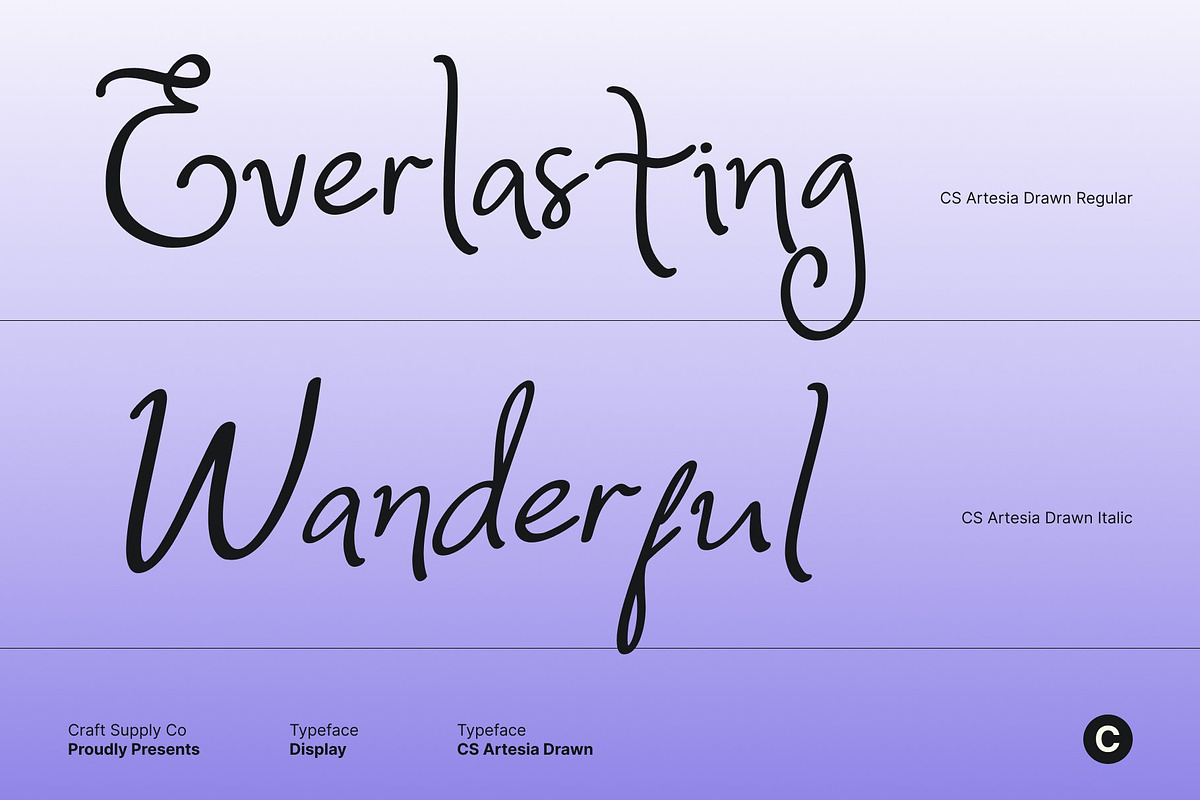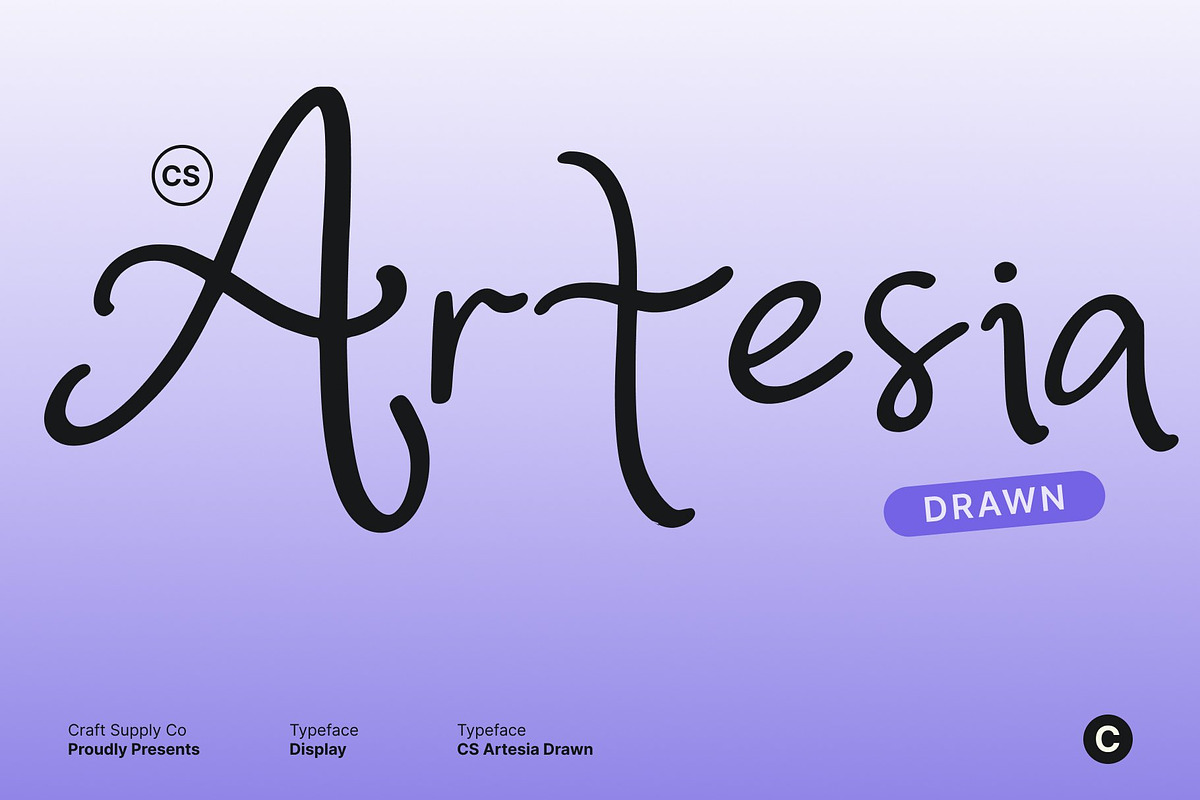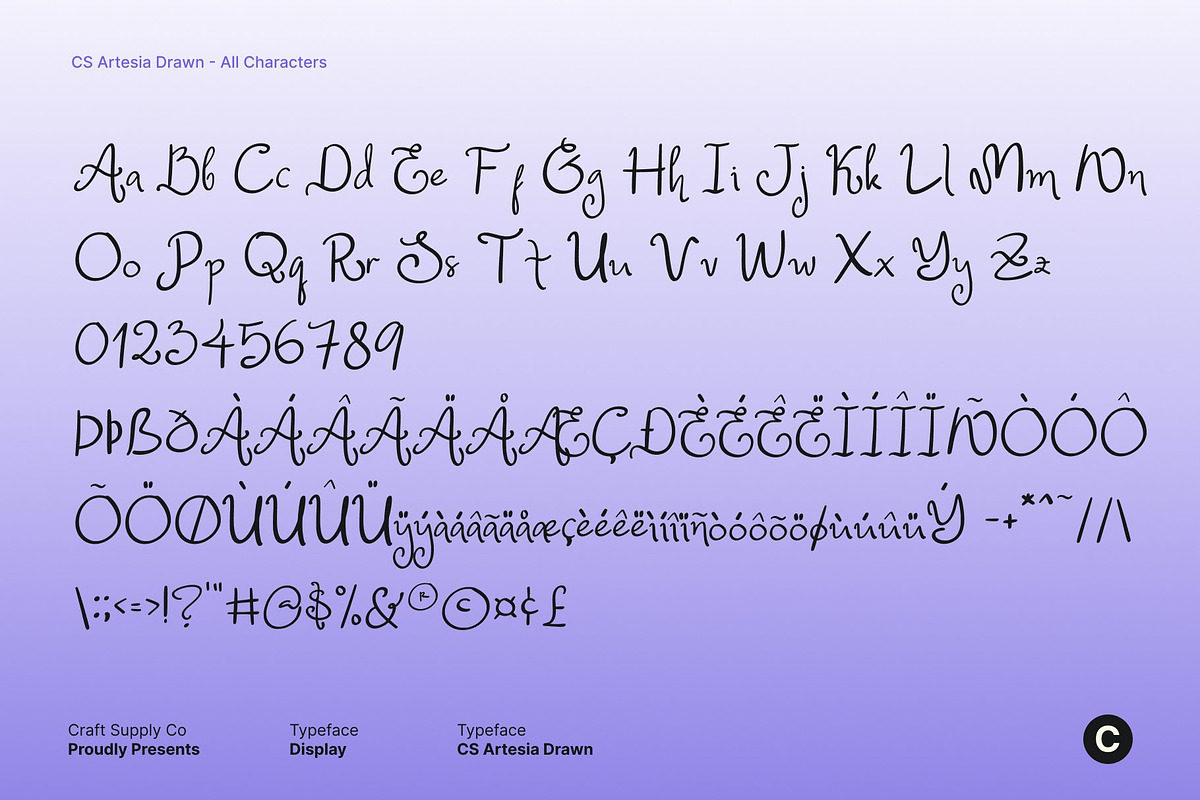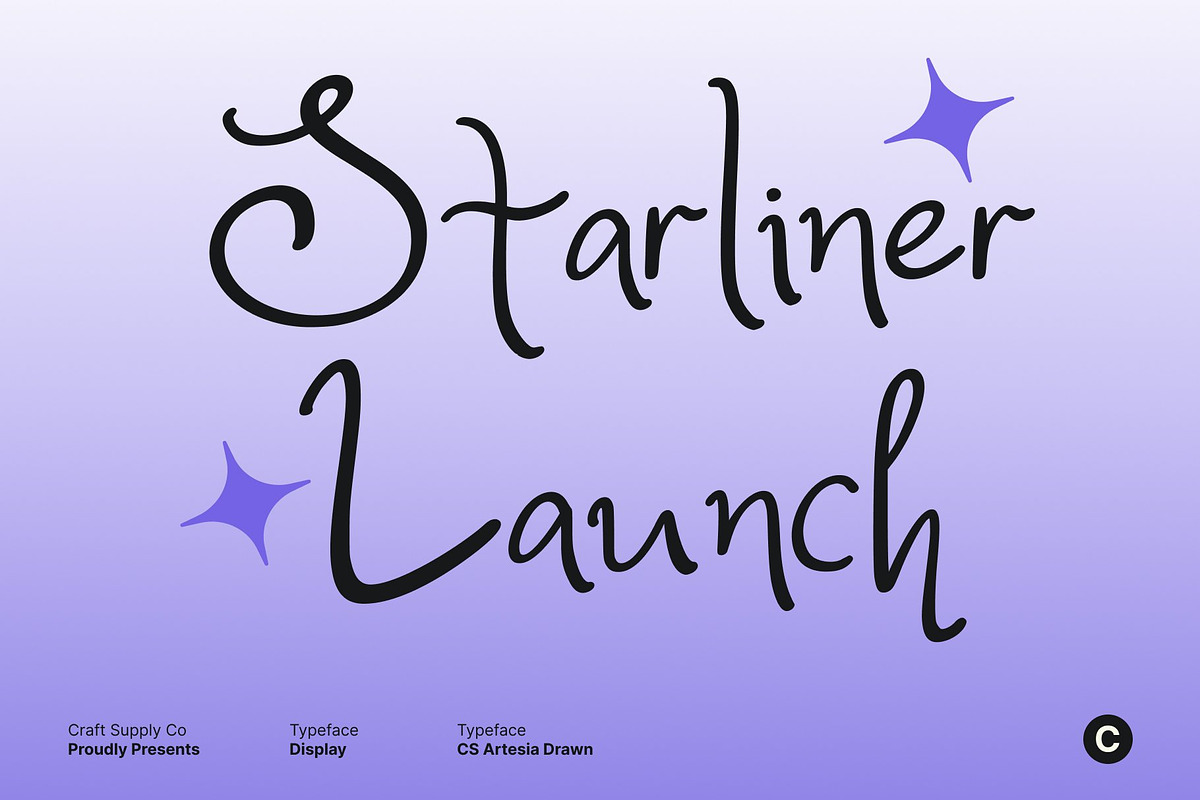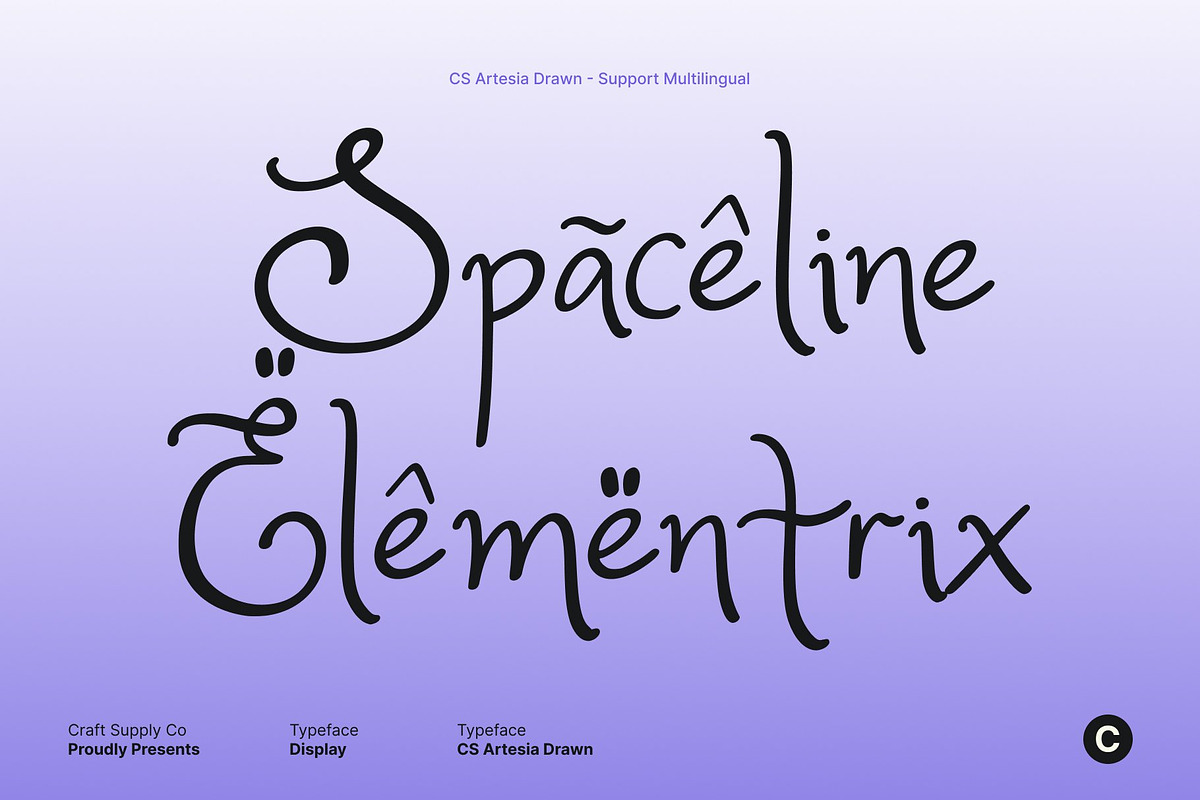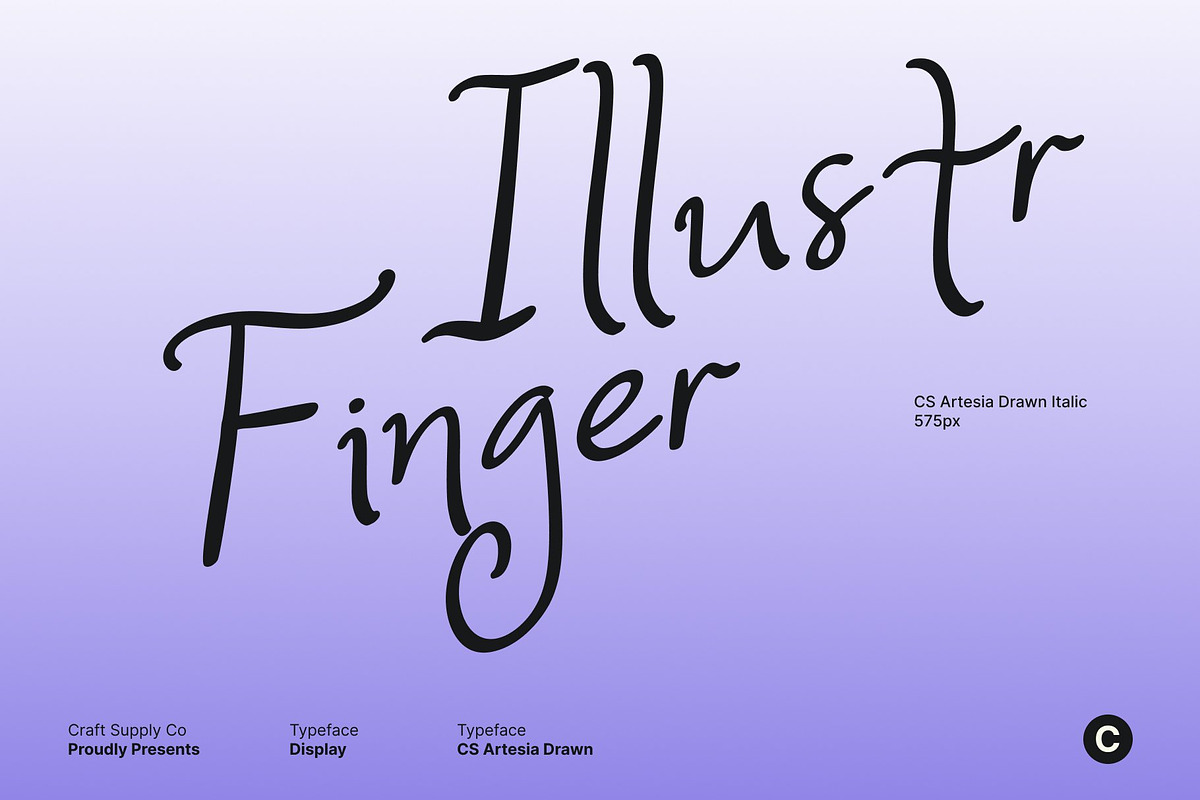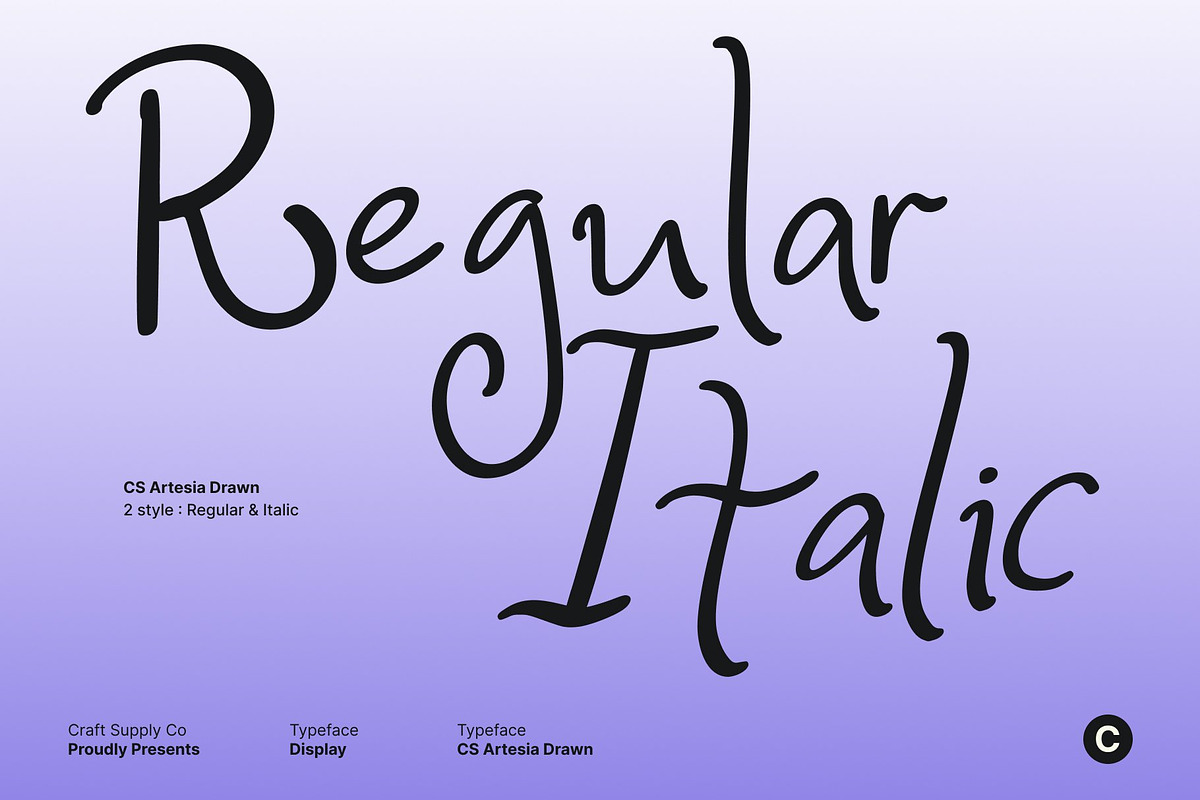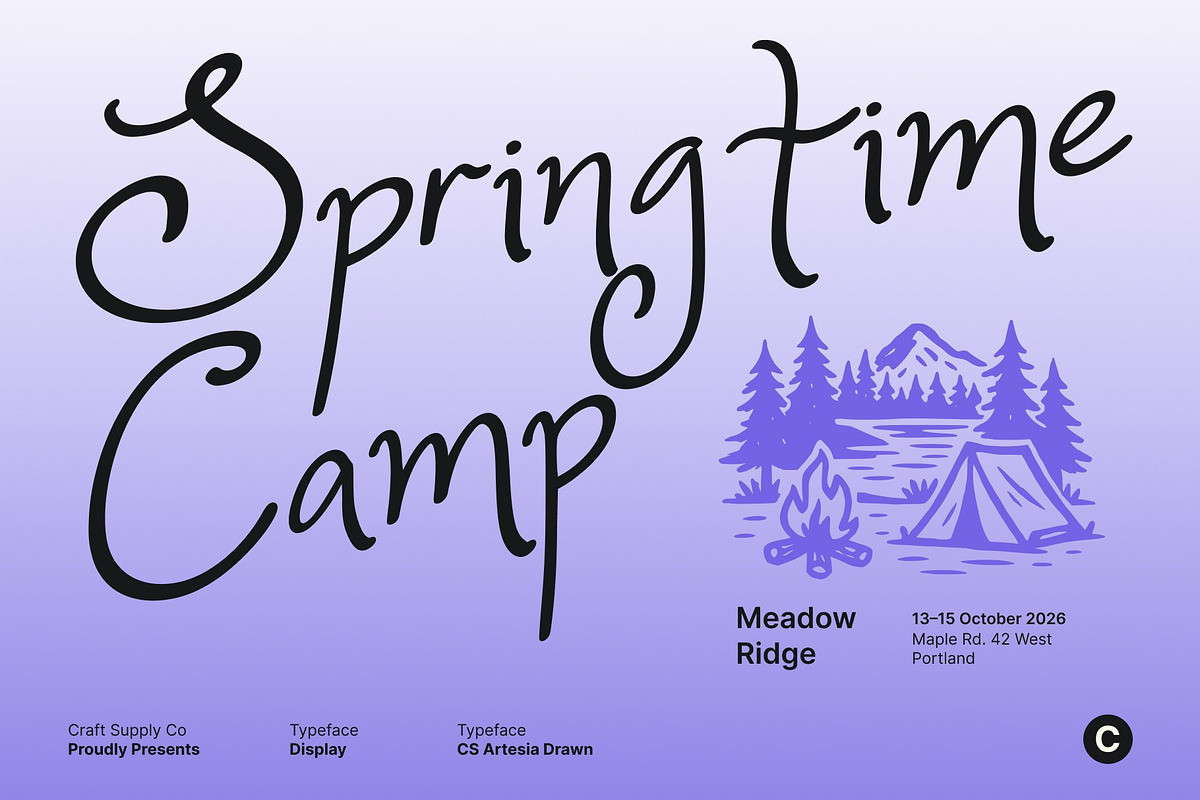
CS Artesia Drawn
CS Artesia Drawn – Handcrafted Beauty with Whimsical Charm
Whimsical Handwritten Font with Expressive Flair This is a whimsical handwritten font that celebrates the beauty of natural curves and artistic hand-drawn expression. Every stroke flows with intention, creating a sense of warmth, elegance, and personality. Its delicate yet confident form delivers a personal and expressive touch, perfect for designs that value emotion, beauty, and individuality.
Graceful Curves for Elegant Expression The signature of this font lies in its smooth, flowing curves. Each letter connects harmoniously, mimicking the rhythm of refined handwriting. This graceful movement brings charm and sophistication to your typography, making it ideal for fashion, art, aesthetic visuals, and lifestyle-focused designs that seek softness with style.
Hand-Drawn Tradition with Authentic Character Enhanced with a subtle drawn texture, this font embraces the authenticity of handcrafted lettering. The organic imperfections add depth and intimacy, giving your designs a human feel that digital perfection can’t replicate. This traditional handwritten character makes it especially suitable for wedding invitations, boutique logos, and heartfelt branding.
Perfect for Stylish and Creative Design Projects This font adapts beautifully across fashion editorials, luxury branding, creative posters, and elegant social media visuals. Its balance of whimsical charm and refined structure ensures every design feels expressive, tasteful, and timeless bringing handcrafted beauty and personal elegance into every composition.